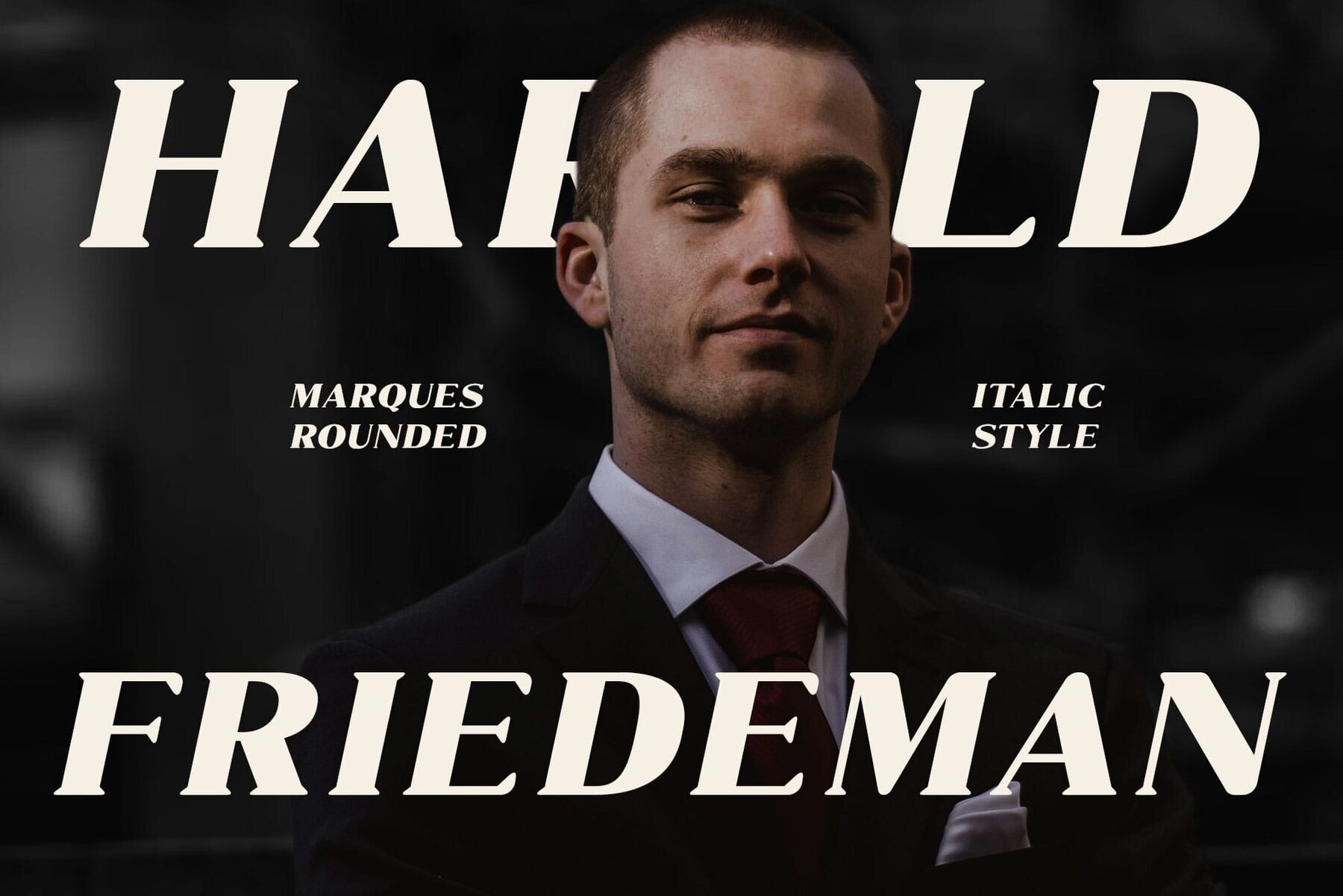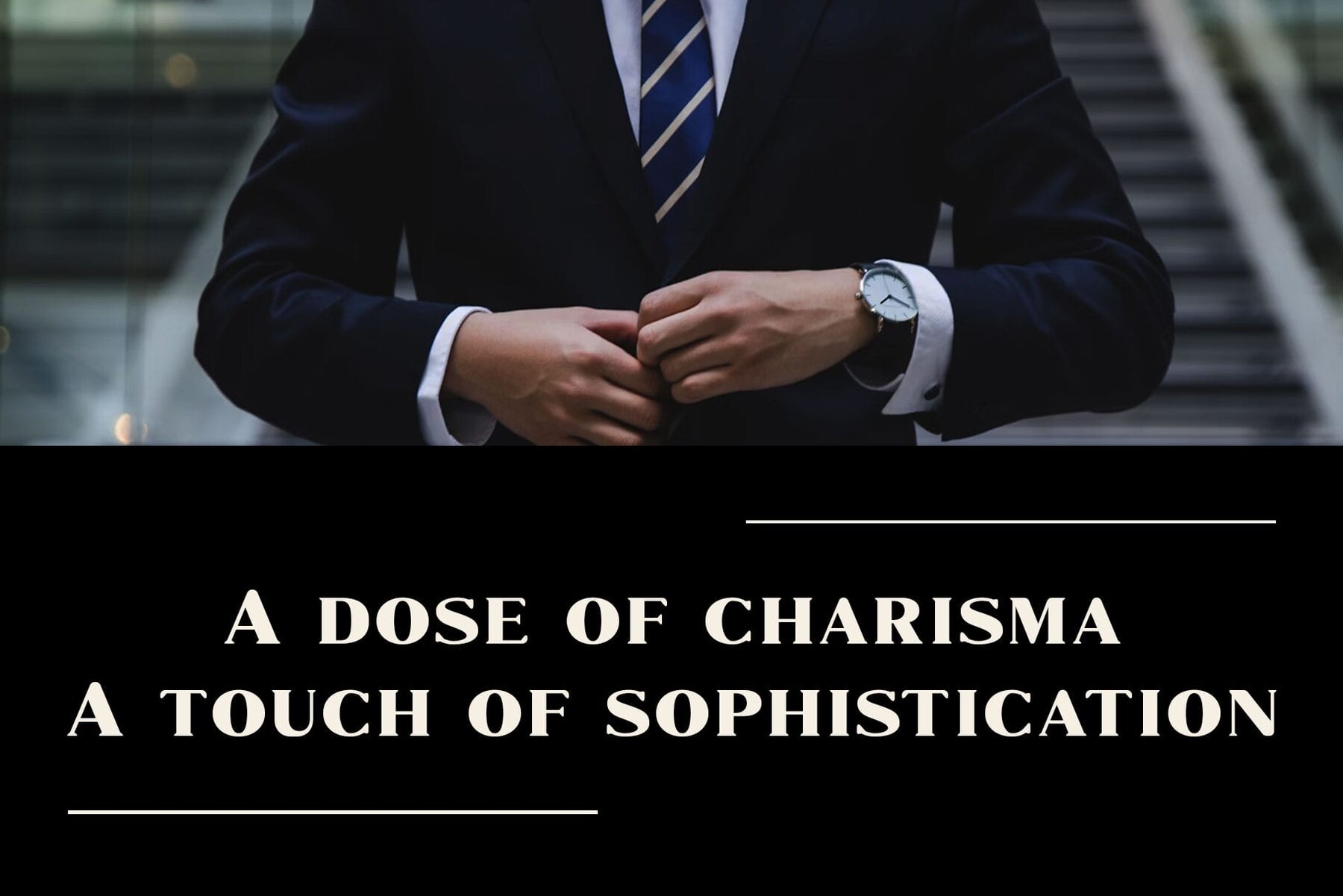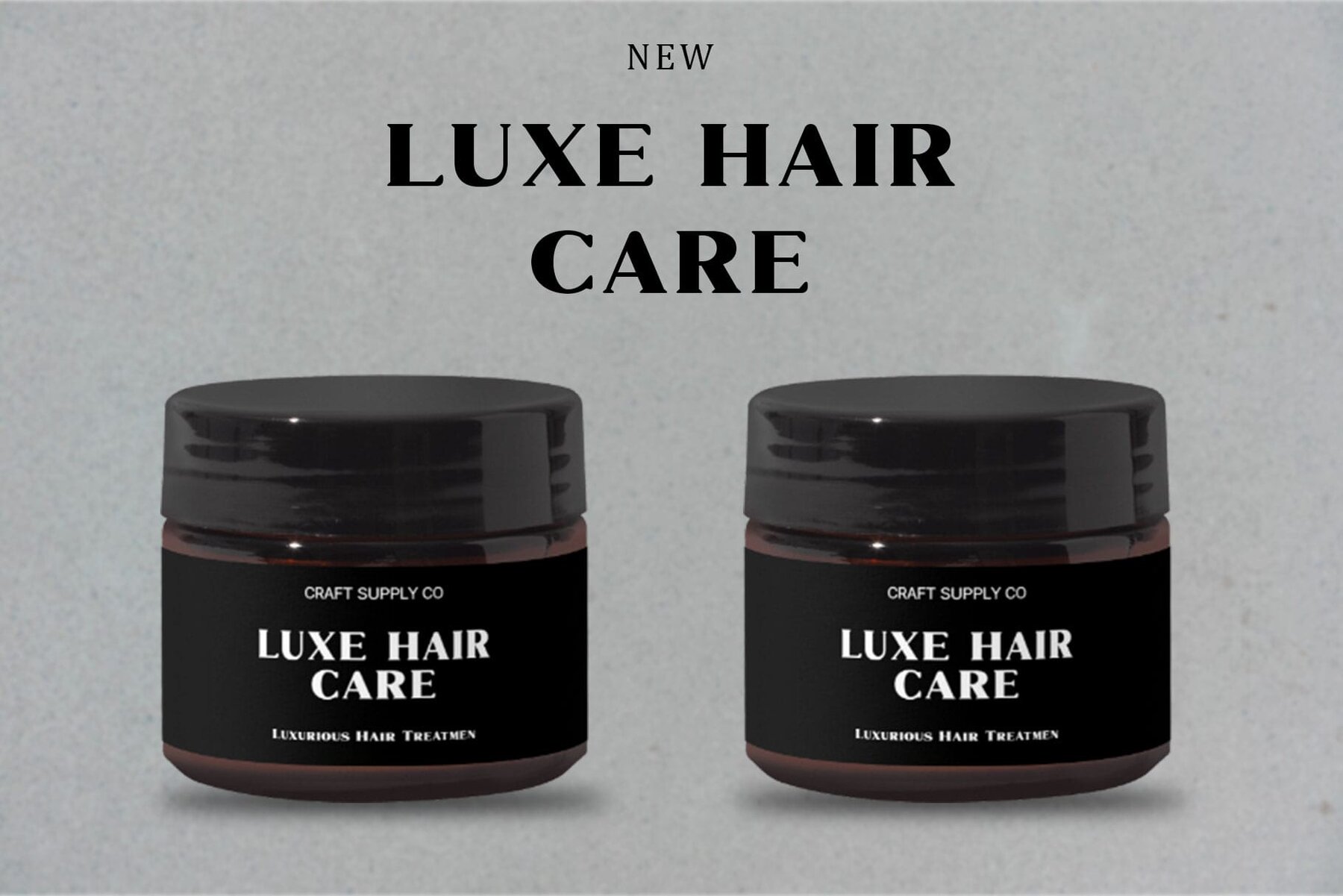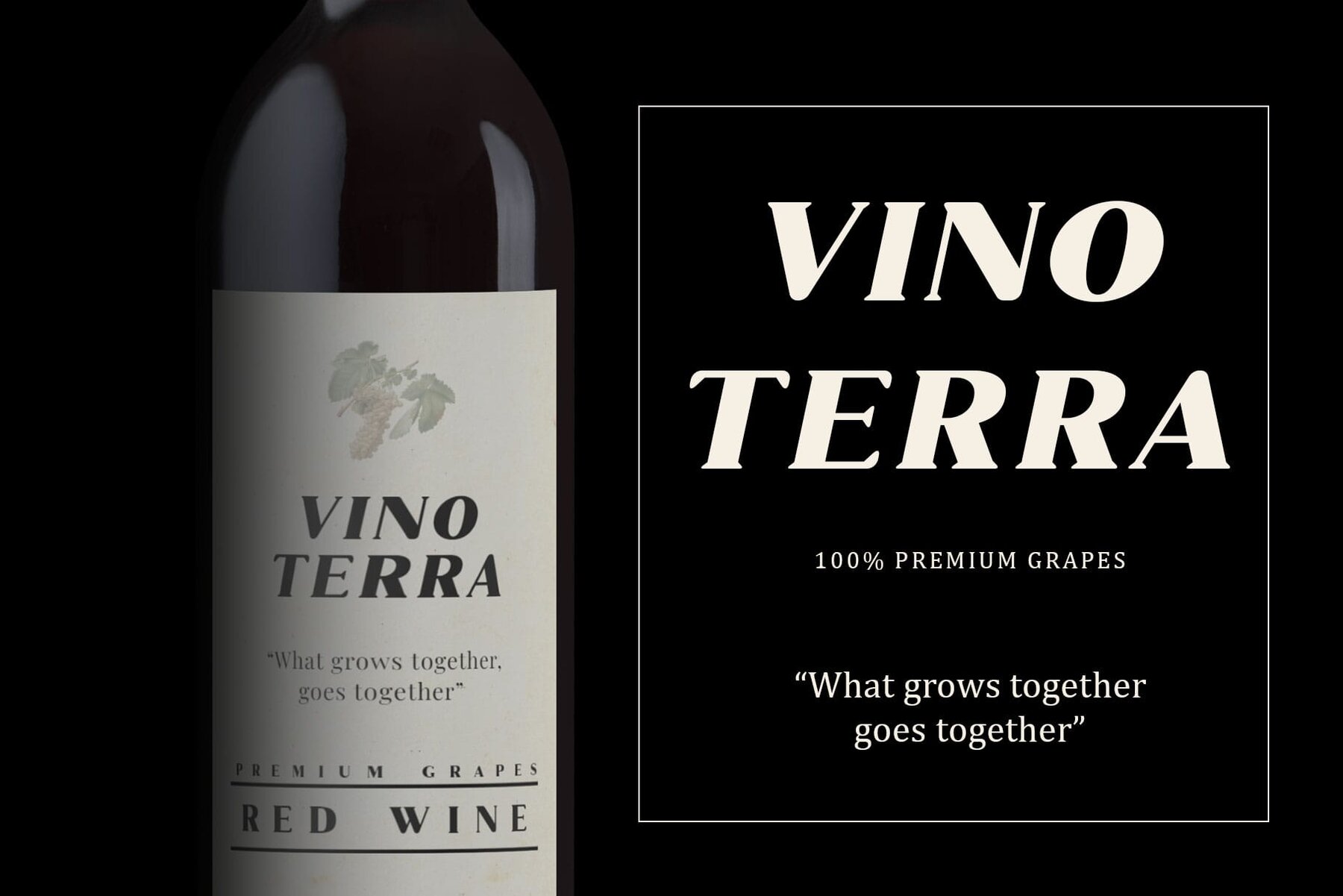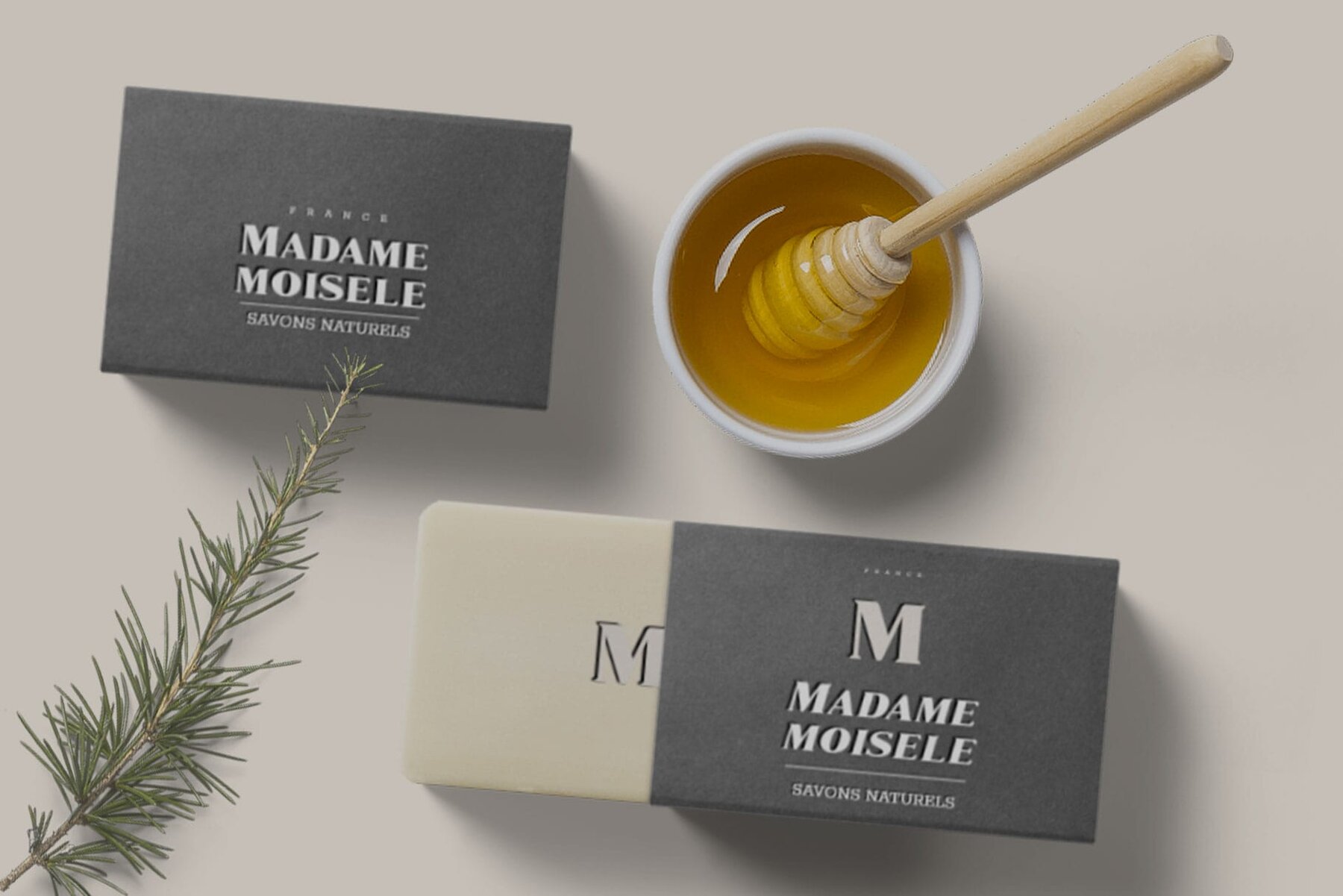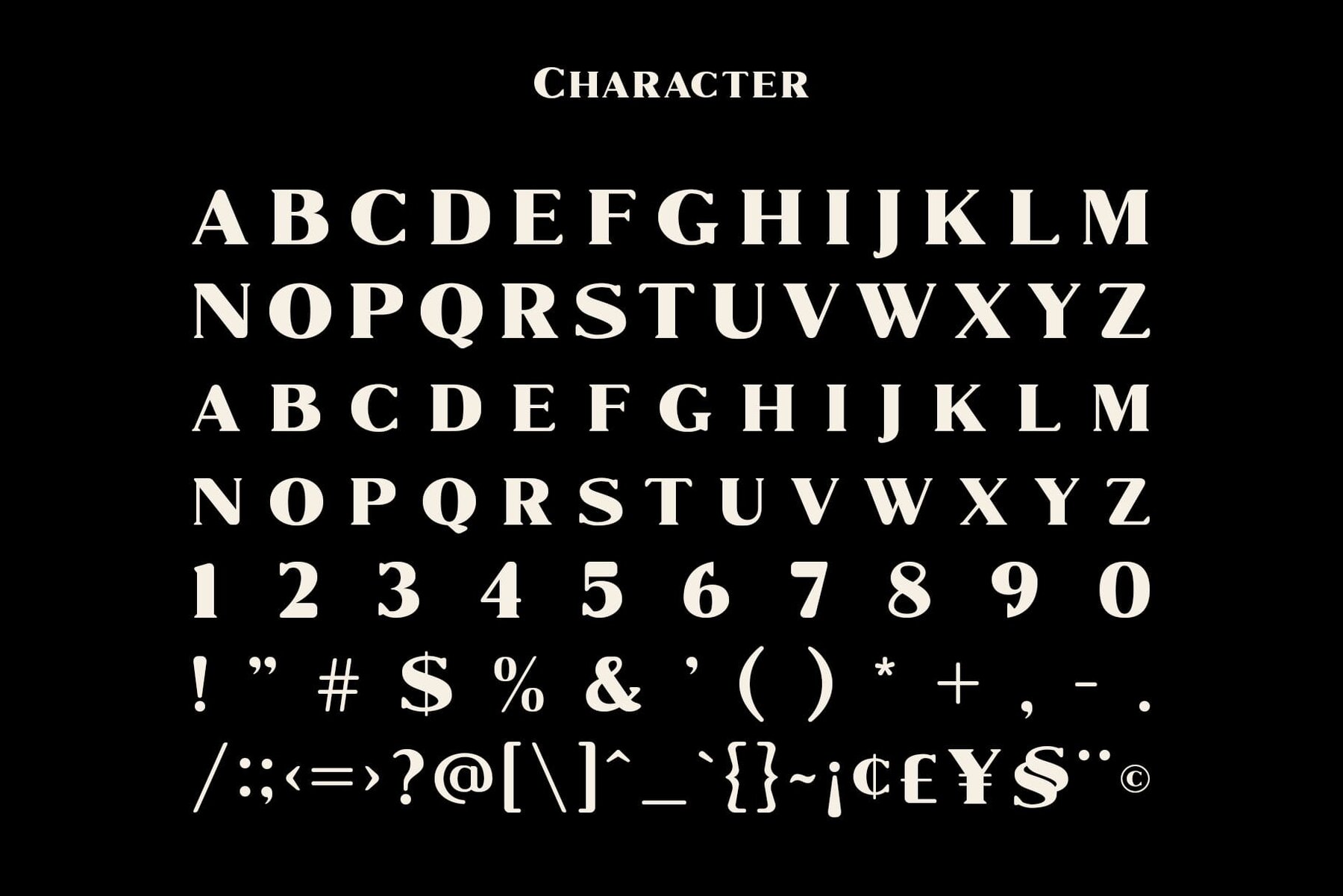
Marques Rounded Font
Marques Rounded is a serif typeface that combines sophistication and refinement through its high contrast between thick and thin strokes. Its sleek and polished appearance makes it a prime choice for those seeking elegance in typography. No specialized software is needed to use this typeface. If you have any inquiries or require assistance, feel free to contact us. Thank you for choosing Marques Rounded to enhance your creative projects! Best regards, Craft Supply Co.Marques Rounded: Elegant Serif Typography